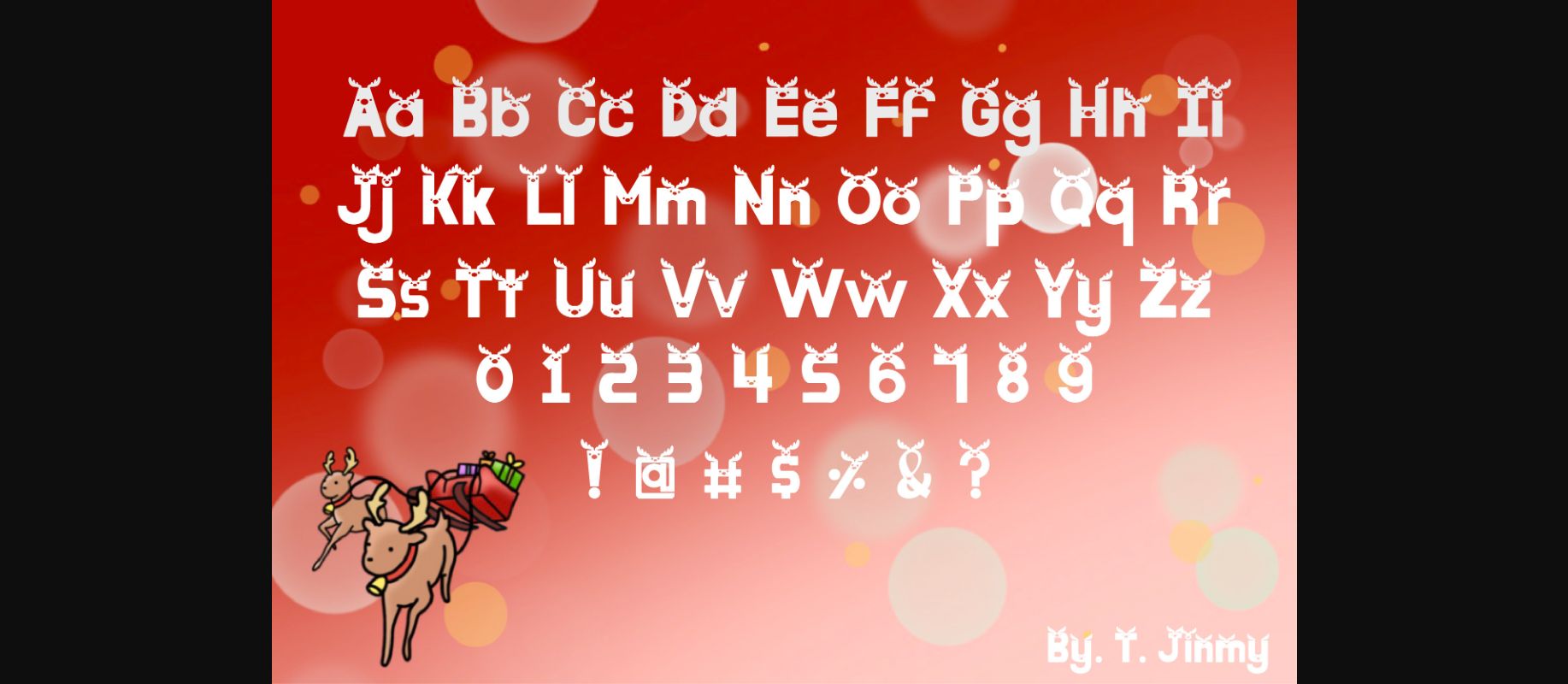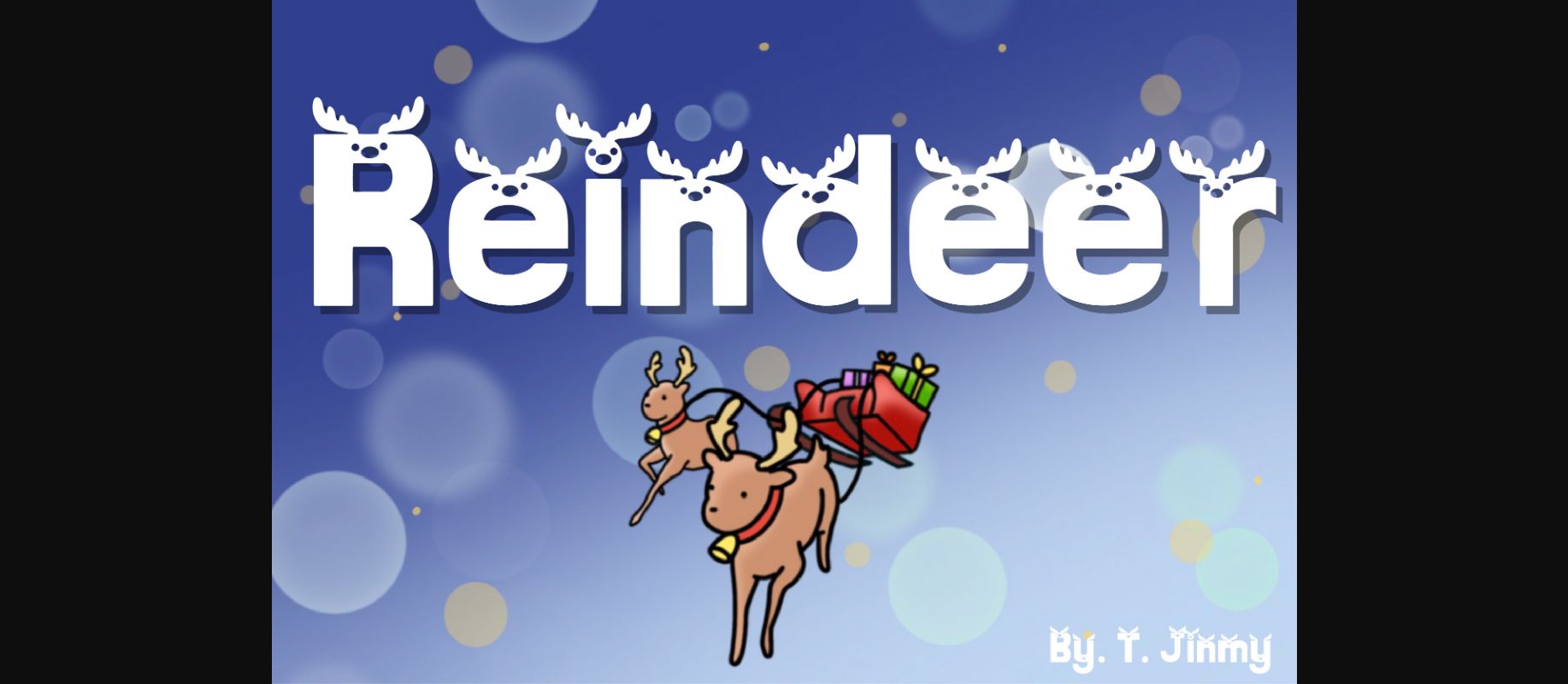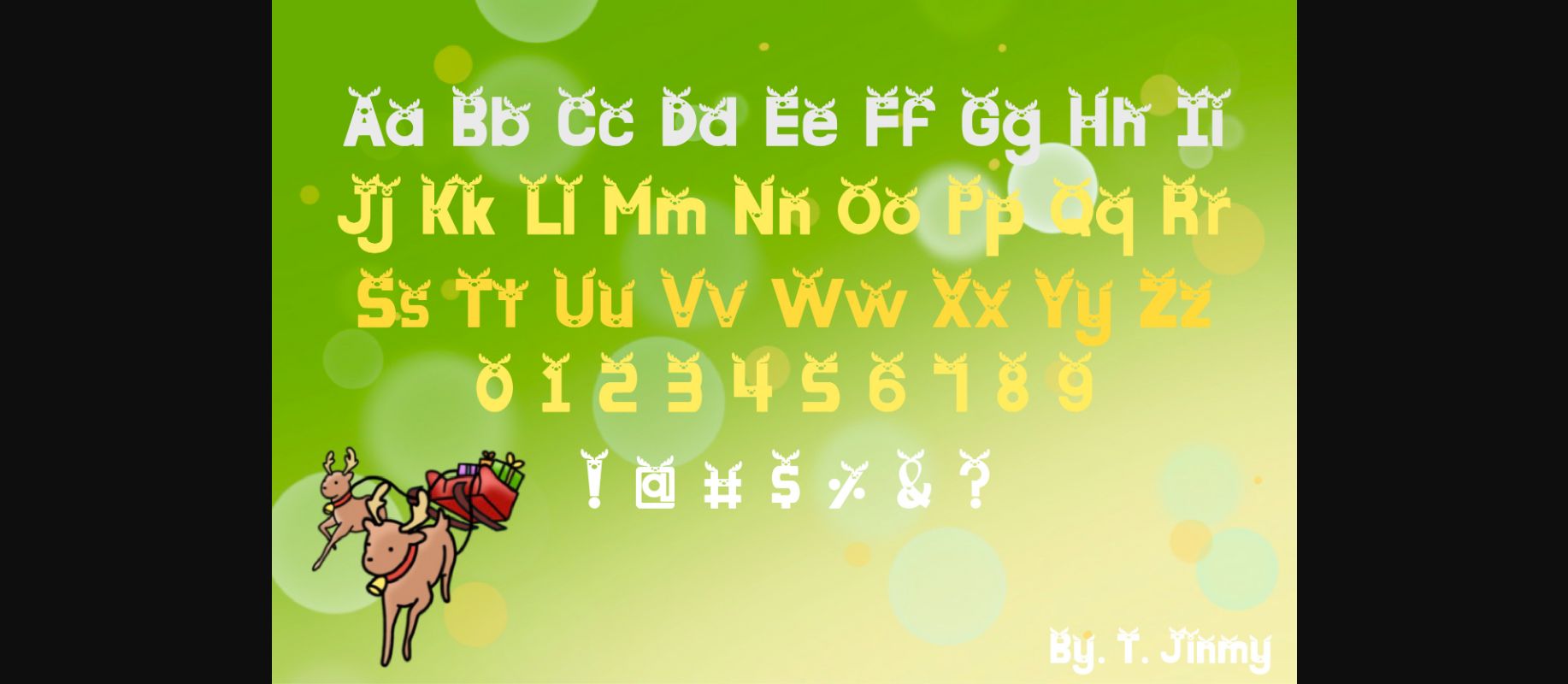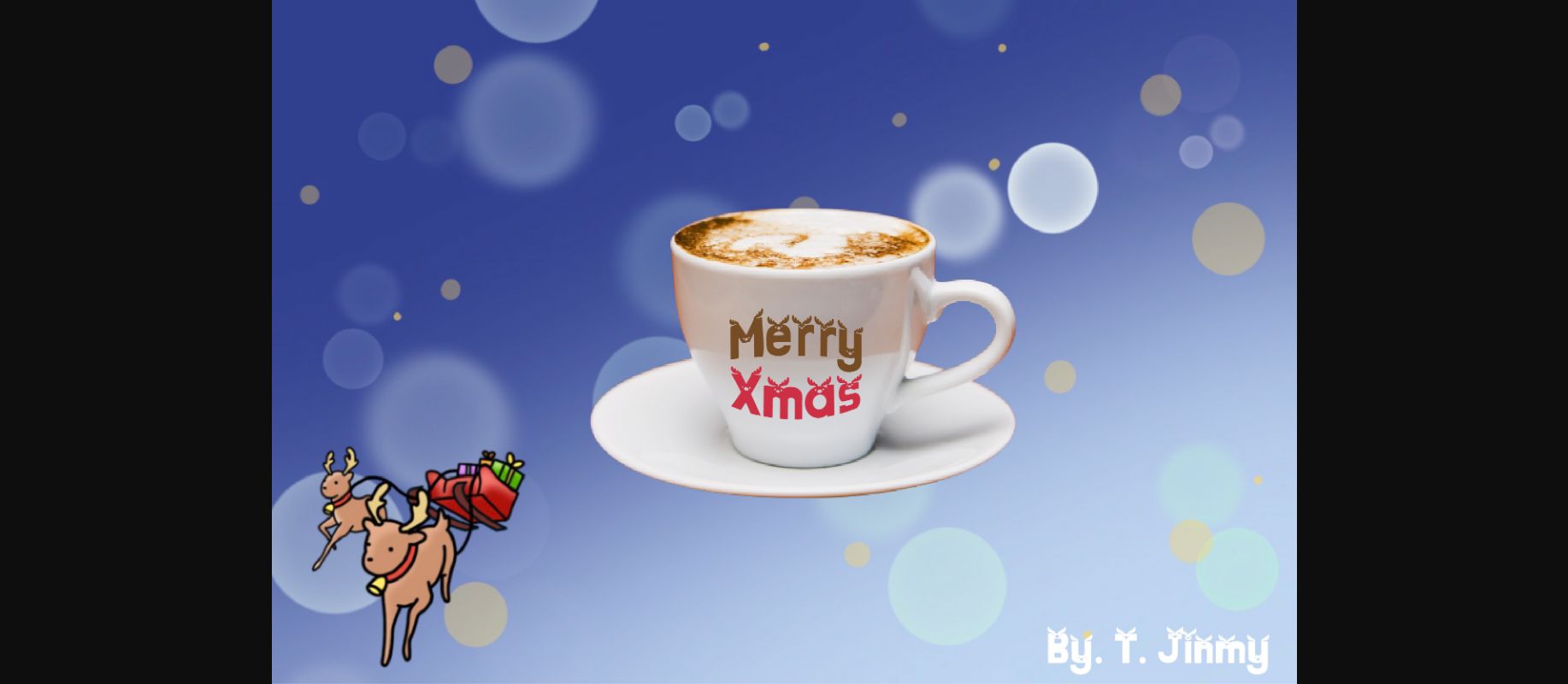
HomeDecorative FontsReindeer Font Decorative Fonts Reindeer Font FacebookXPinterestWhatsApp 1 of 6 ... Reindeer Font Poster 2... Reindeer Font Poster 3... Reindeer Font Poster 4... Reindeer Font Poster 5... Reindeer Font Poster 6... About Reindeer Font Reindeer is a cute decorative font. It is the perfect fit for all of your logos, branding, social media, crafty DIY projects, and much more! DOWNLOAD NOW People also explored Autoradiographic Deventer Font Sport Poses Silhouettes Font Christmas Gnomes Font Harriesse Font Sambery Font Sunset Club Font Thin in Bold Font Christmas Snowy Font 255 0 TagsReindeer Font Previous articleBear FontNext articleCupid Font LEAVE A REPLY Cancel reply Comment: Please enter your comment! Name:* Please enter your name here Email:* You have entered an incorrect email address! Please enter your email address here Website: Save my name, email, and website in this browser for the next time I comment. Personal Use Free Xplor Personal Use Free Read more about this font Bosque Font Personal Use Free Read more about this font Electroharmonix Personal Use Free Read more about this font Milda Personal Use Free Read more about this font BLOG Top 10 Handwritten Fonts That Elevate Your Designs Top 10 Handwritten Fonts That Will Elevate Your Designs Handwritten fonts bring a warm, personal touch to every creative project. Whether you're designing logos, invitations,... Transform Your Website: Elevate Your Typography with 7 Best Web Font Generators Top 7 Google Fonts Alternatives for Faster and Privacy-Friendly Web Design (2025) To increase your work productivity, choose the most readable fonts.